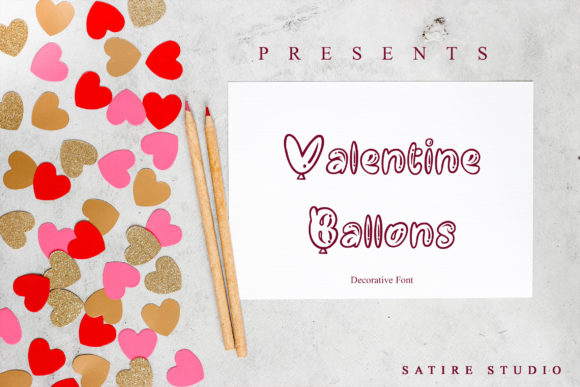
Unleash your creativity with Valentine Ballons Font - a captivating display font that brings an effervescent charm to your designs. Inspired by the whimsical joy of Valentine's Day, this font dances across your screen like a cascade of shimmering bubbles, adding a touch of playfulness and delight to any project.
With its cheerful and bouncy appearance, Valentine Ballons Font is perfect for injecting personality into your crafts, digital designs, presentations, and greeting cards. Its unique and eye-catching style has the power to transform ordinary words into extraordinary expressions of love, friendship, and celebration.
Imagine your designs taking flight with Valentine Ballons Font. Create enchanting invitations that spark joy in the hearts of your guests. Design vibrant posters that capture the spirit of festive occasions. Craft heartfelt greeting cards that convey your warmest sentiments in an unforgettable way. The possibilities are endless with this font as your creative companion.
This font is not just a tool; it's an extension of your imagination, a brush that paints smiles on the faces of your audience. Its bubbly nature evokes a sense of nostalgia, reminding us of childhood laughter and carefree moments. Let Valentine Ballons Font be the spark that ignites your creativity and propels your designs to new heights.
So, embrace the magic of Valentine Ballons Font and let your designs burst with exuberance. Make a statement, share your passion, and spread happiness wherever your creations go. Experience the joy of effortless expression with this delightful display font, and let your designs become a symphony of smiles.
Dive into the world of Valentine Ballons Font today and discover the endless possibilities waiting for you. Let your imagination soar, let your creativity flow, and let this font be the catalyst for your most captivating designs yet.